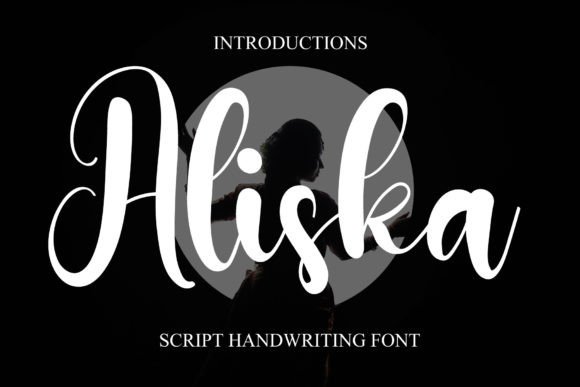
Introducing Aliska Font: The Sweet and Elegant Handwritten Font
Are you looking for a font that can add a touch of elegance and romance to your designs? Look no further than Aliska Font, a beautiful and cursive handwritten font that is perfect for a variety of design projects. In this article, we’ll take a closer look at Aliska Font and explore its features, uses, and benefits.
What is Aliska Font?
Aliska Font is a sweet and cursive handwritten font that is designed to add a touch of joy and romance to your designs. Its gentle and flowing curves make it perfect for creating elegant and sophisticated designs that are sure to impress. Whether you’re working on a branding project, designing a logo, or creating wedding materials, Aliska Font is the perfect choice.
Features of Aliska Font
Aliska Font has several features that make it a versatile and elegant font. Some of its key features include:
- Sweet and Cursive Design: Aliska Font has a beautiful, cursive design that is sure to add a touch of elegance to your designs.
- Handwritten Style: The font has a handwritten style that gives it a personal and unique touch.
- Easy to Read: Despite its elegant design, Aliska Font is easy to read and understand, making it perfect for body text and headings.
- Multilingual Support: Aliska Font supports multiple languages, making it a great choice for designers working on international projects.
Uses of Aliska Font
Aliska Font is a versatile font that can be used in a variety of design projects. Some of the most popular uses of Aliska Font include:
- Branding and Logo Design: Aliska Font is perfect for creating elegant and sophisticated brand identities and logos.
- Wedding Design: The font’s romantic and elegant design makes it perfect for wedding invitations, decorations, and other materials.
- Greeting Cards: Aliska Font is a great choice for designing greeting cards for special occasions such as birthdays, anniversaries, and holidays.
- Fashion and Lookbook Design: The font’s elegant design makes it perfect for fashion brands and designers looking to create stylish and sophisticated lookbooks and marketing materials.
Benefits of Using Aliska Font
There are several benefits to using Aliska Font in your design projects. Some of the most significant benefits include:
- Elegant and Sophisticated Design: Aliska Font’s elegant design is sure to add a touch of sophistication to your designs.
- Versatility: The font’s versatility makes it perfect for a wide range of design projects.
- High-Quality Design: The font is designed to high-quality standards, ensuring that it will look great in any design project.
Tips for Using Aliska Font
Here are a few tips for using Aliska Font in your design projects:
- Use it as a Headline Font: Aliska Font is perfect for use as a headline font, where its elegant design can really shine.
- Pair it with Other Fonts: The font pairs well with other fonts, making it easy to create visually appealing designs.
- Experiment with Different Colors: Aliska Font looks great in a variety of colors, so don’t be afraid to experiment and find the perfect color for your design.
Aliska Font is a beautiful and elegant handwritten font that is perfect for a variety of design projects. Its sweet and cursive design makes it perfect for adding a touch of romance and sophistication to your designs. With its versatility, ease of use, and high-quality design, Aliska Font is a great choice for designers looking to create elegant and sophisticated designs.